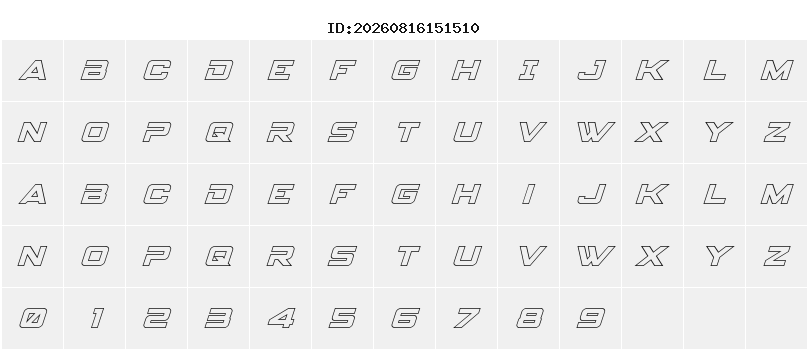
Spy Agency Outline Italic Preview
• Font Name: Spy Agency Outline Italic
• Font Style: Outline Italic
• Full Font Name: Spy Agency Outline Italic
About Spy Agency Outline Italic.ttf
Spy Agency Outline Italic.ttf is a modern, elegant sans-serif font designed for ultimate readability and visual harmony. Perfect for branding, headlines, web design, and print materials.